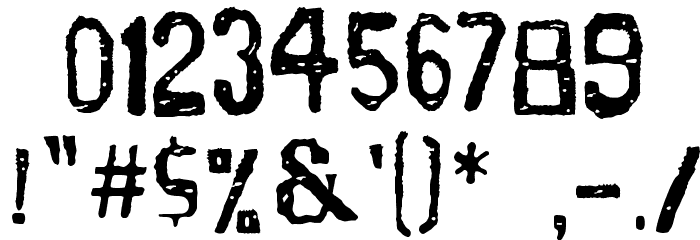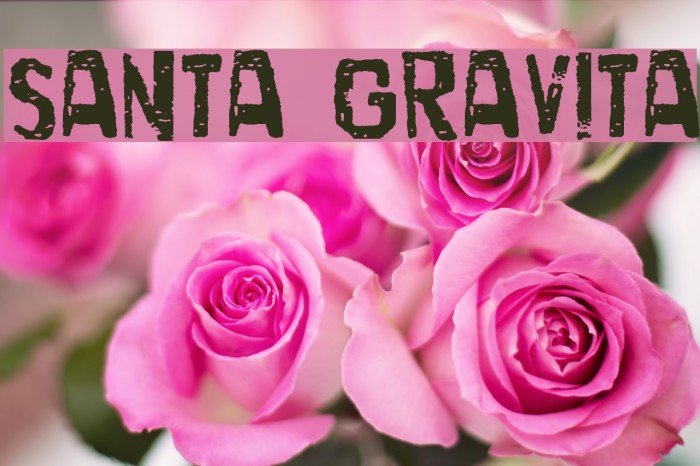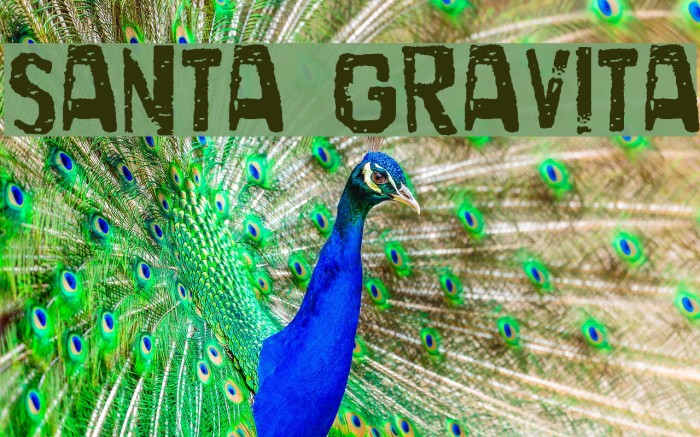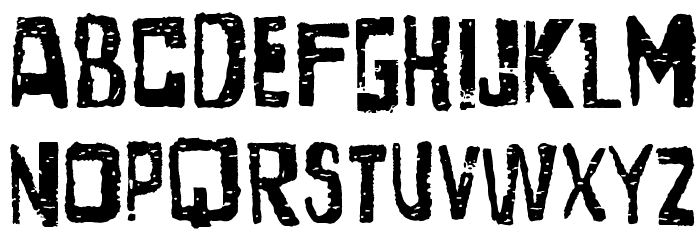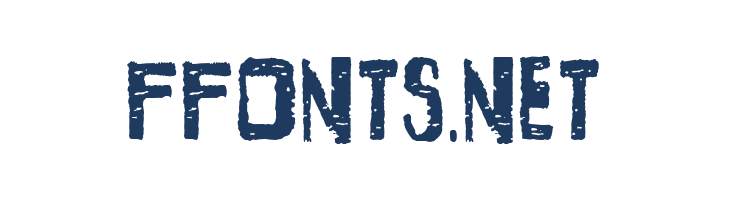
Santa Gravita Font
This font exhibits a rugged, distressed appearance, reminiscent of vintage printing techniques. The characters are bold and display a rough texture, giving them a weathered and worn look. The uppercase letters are uniform in height, while the numbers and special characters maintain the same distressed style. The font's unique texture adds a layer of depth and character, making it ideal for projects that require a rustic or grunge aesthetic. Its boldness ensures readability, while the irregular edges contribute to its distinctive style.
A bold, distressed font with a vintage, rugged texture.
• Proposed Projects: Ideal for posters, album covers, branding for rustic or vintage-themed products, and any design requiring a bold, textured look.
• Category: Decorative/Display
• Overall Style: Vintage
• Use Case: Headlines, Logos